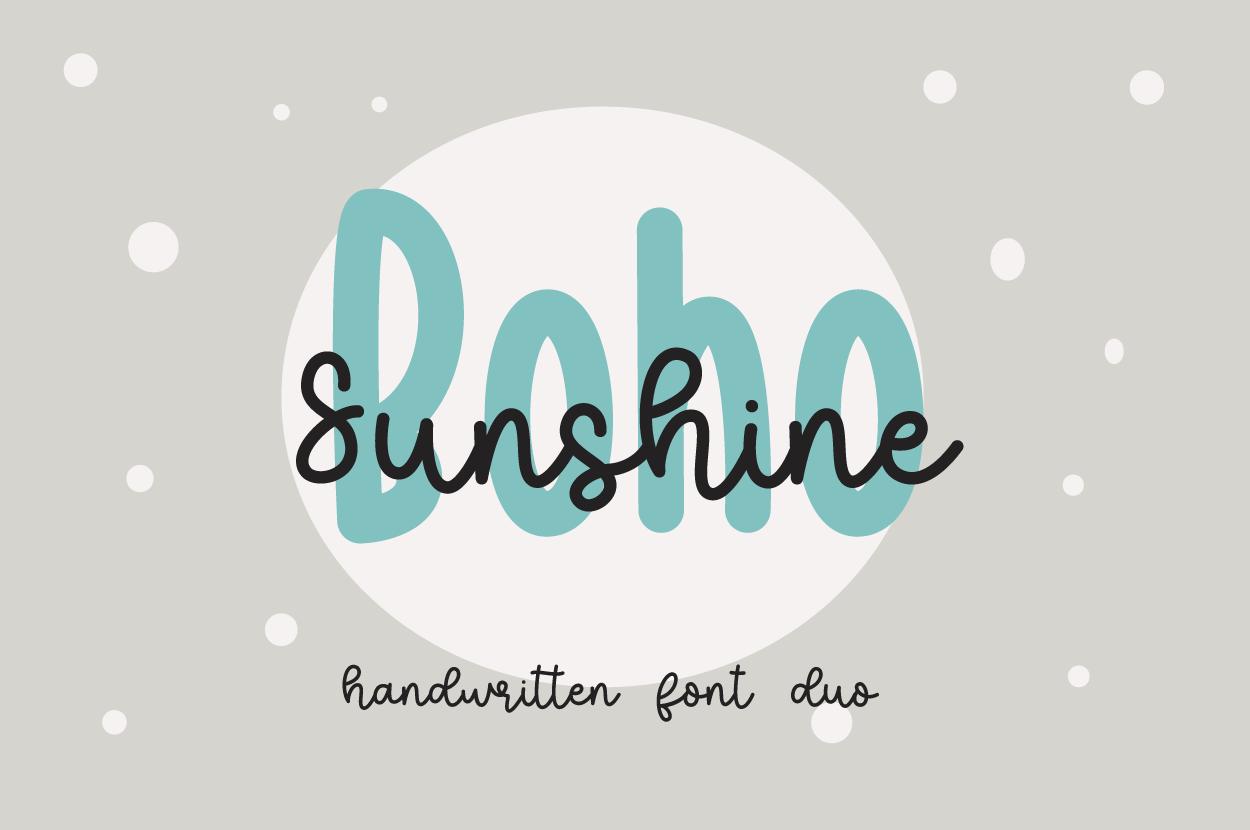
Boho Sunshine Font Description
Boho Sunshine is a simple and interesting font duo (handwritten and sans serif). Its friendly feel makes this font incredibly versatile, fitting a wide range of contexts. It looks stunning on thank you cards, quotes, greeting cards, logos, business cards, and any other design that needs an artistic touch. Add it to your creative ideas and notice how it makes them stand out!